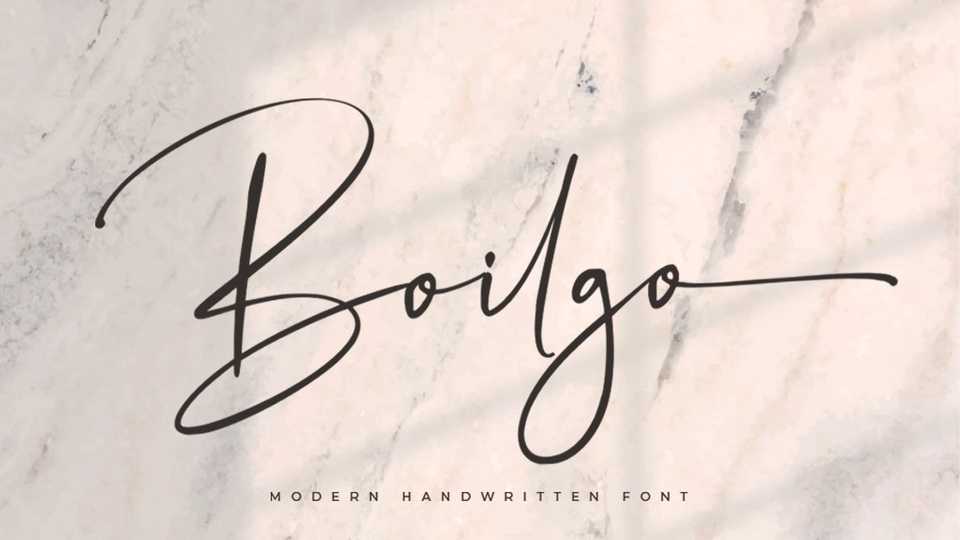
Download Boilgo font, a minimalistic handwritten script with signature style. Boilgo easily cooperating together for magazine, movies, or book titles, photography, wedding invitation, restaurant menu, fashion, cosmetics product and more.
Designer: Vultype Co